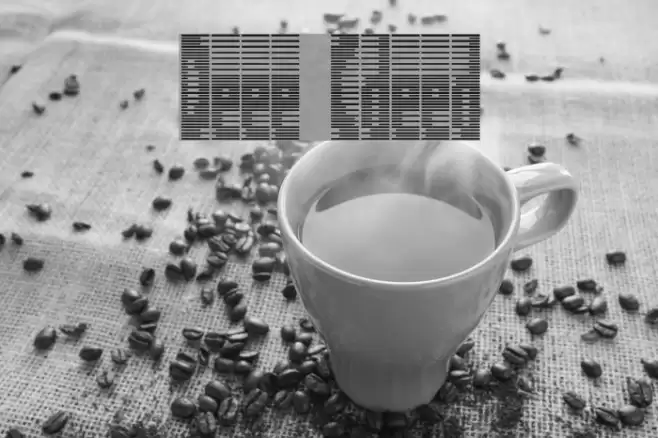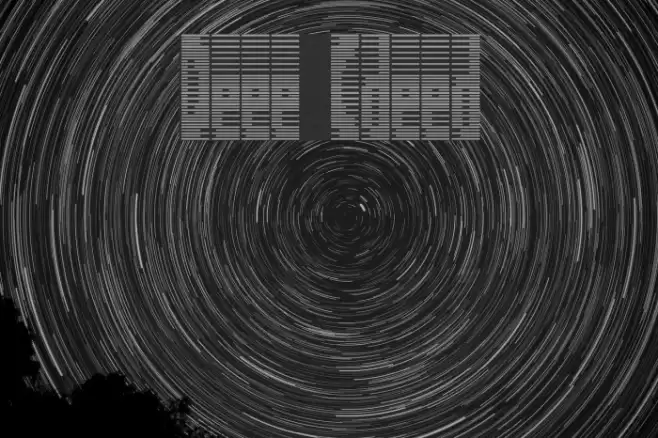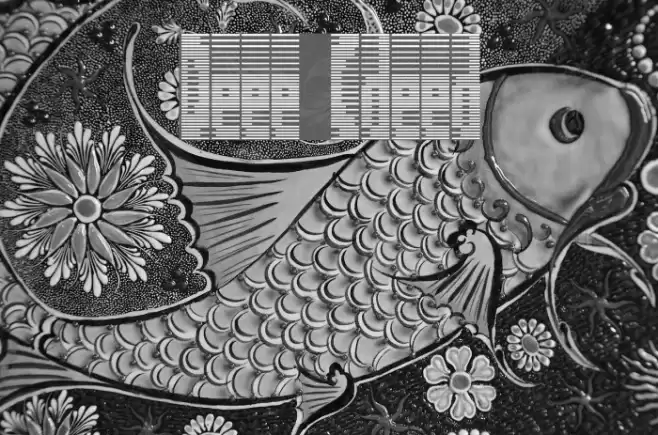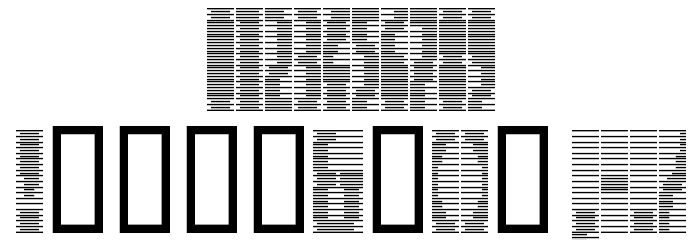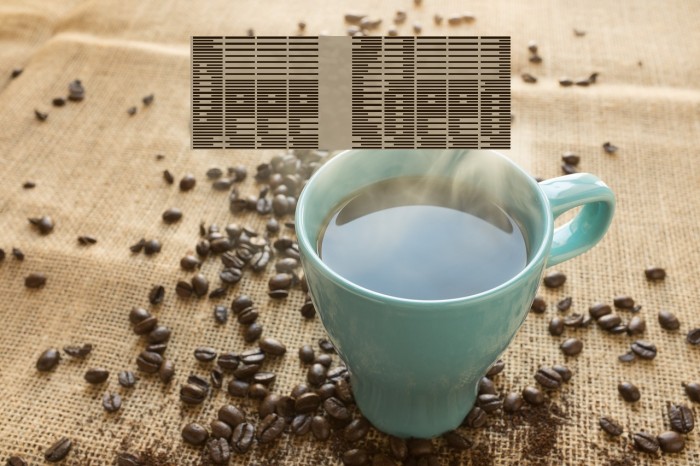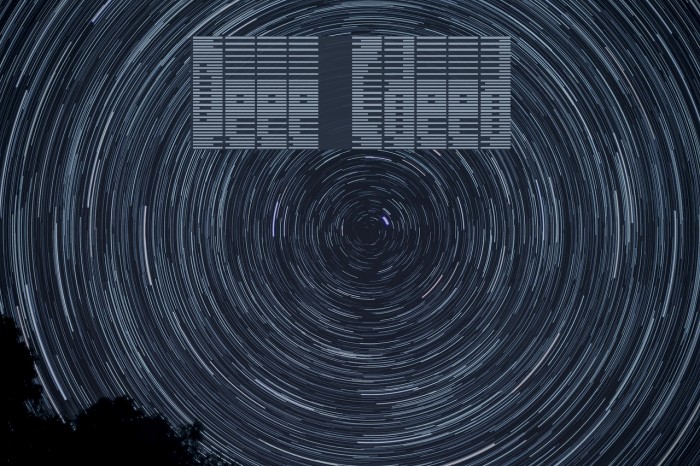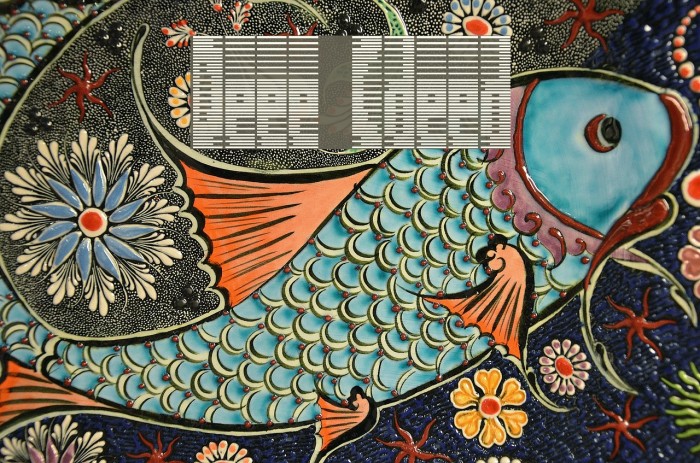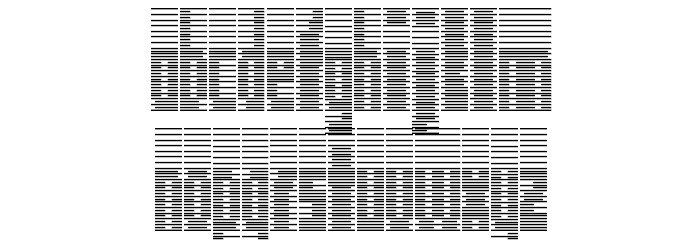
Deeter Condensed Font
Deeter Condensed Description
This font features a highly condensed and geometric style, characterized by its uniform line thickness and structured appearance. The letters are composed of horizontal lines that create a striped effect, giving it a modern and digital aesthetic. The uppercase and lowercase letters maintain a consistent height, enhancing its compact and organized look. The numerals and special characters follow the same design principles, ensuring a cohesive visual identity across all glyphs. This font's unique design makes it stand out, offering a futuristic and minimalist vibe.
- Proposed Projects: Ideal for digital interfaces, tech branding, futuristic posters, and modern art installations.